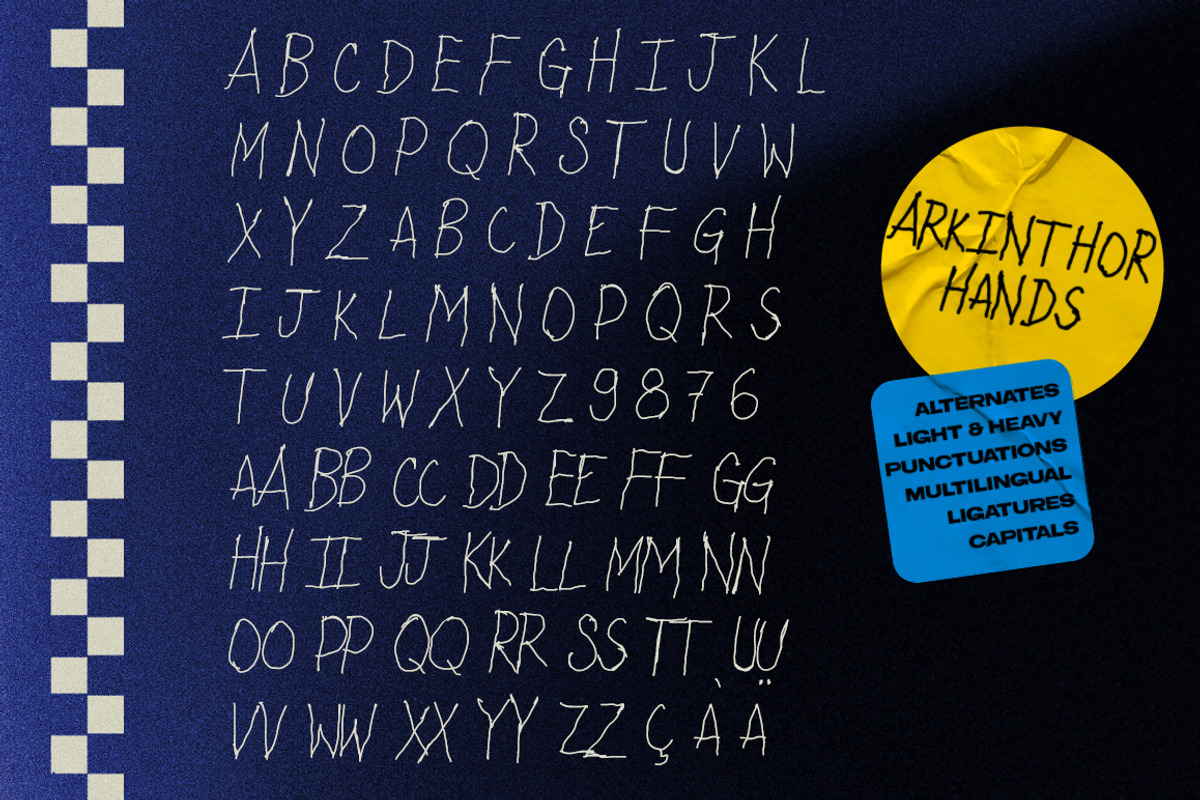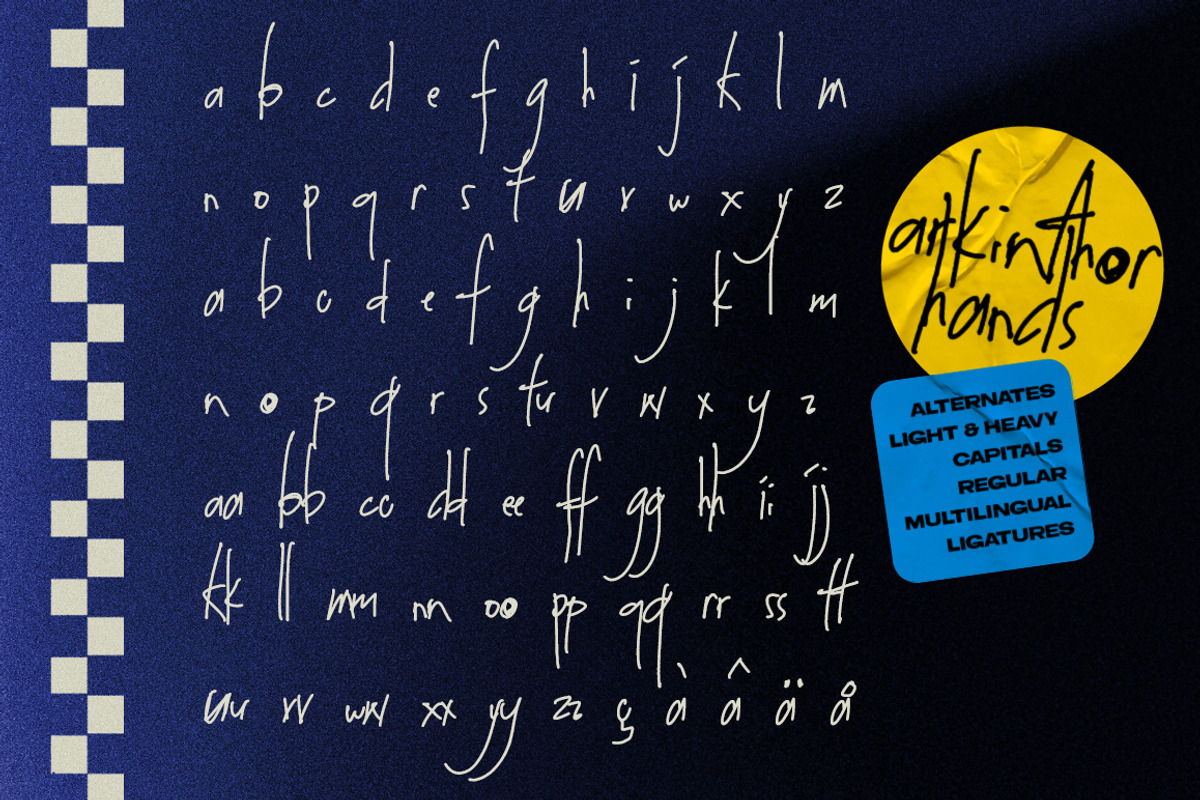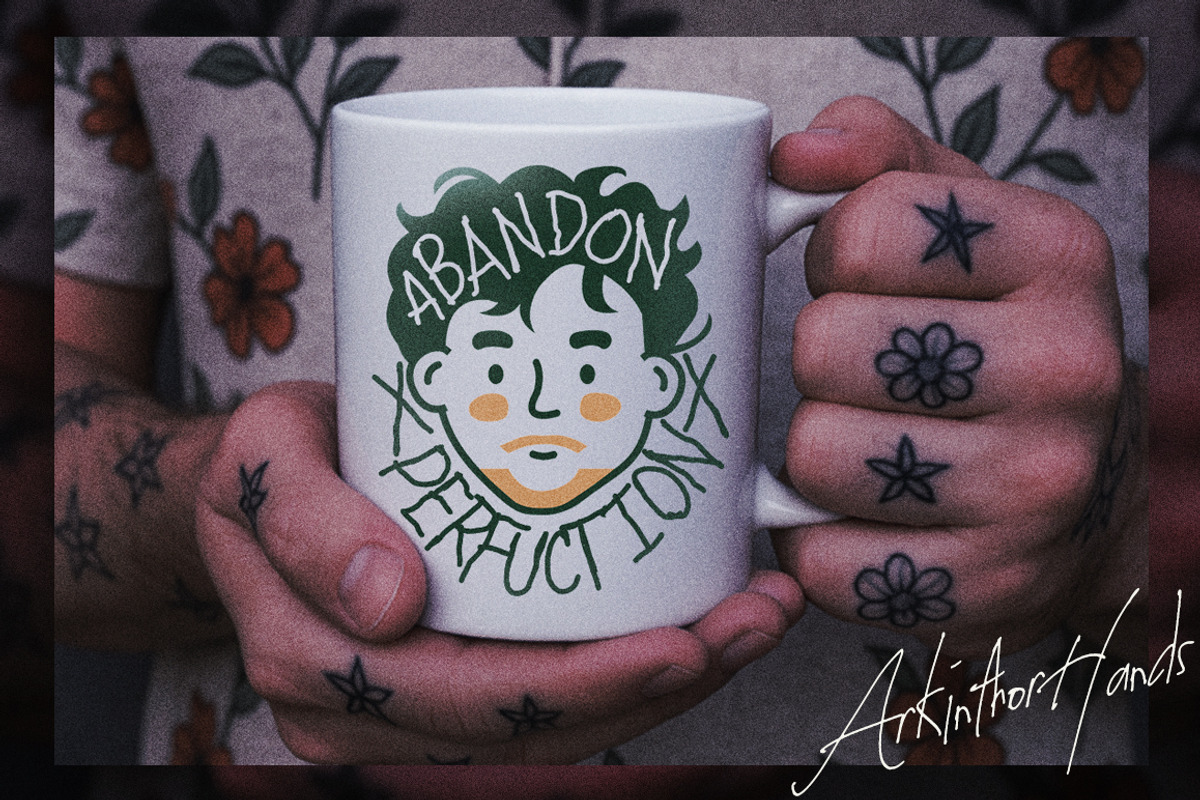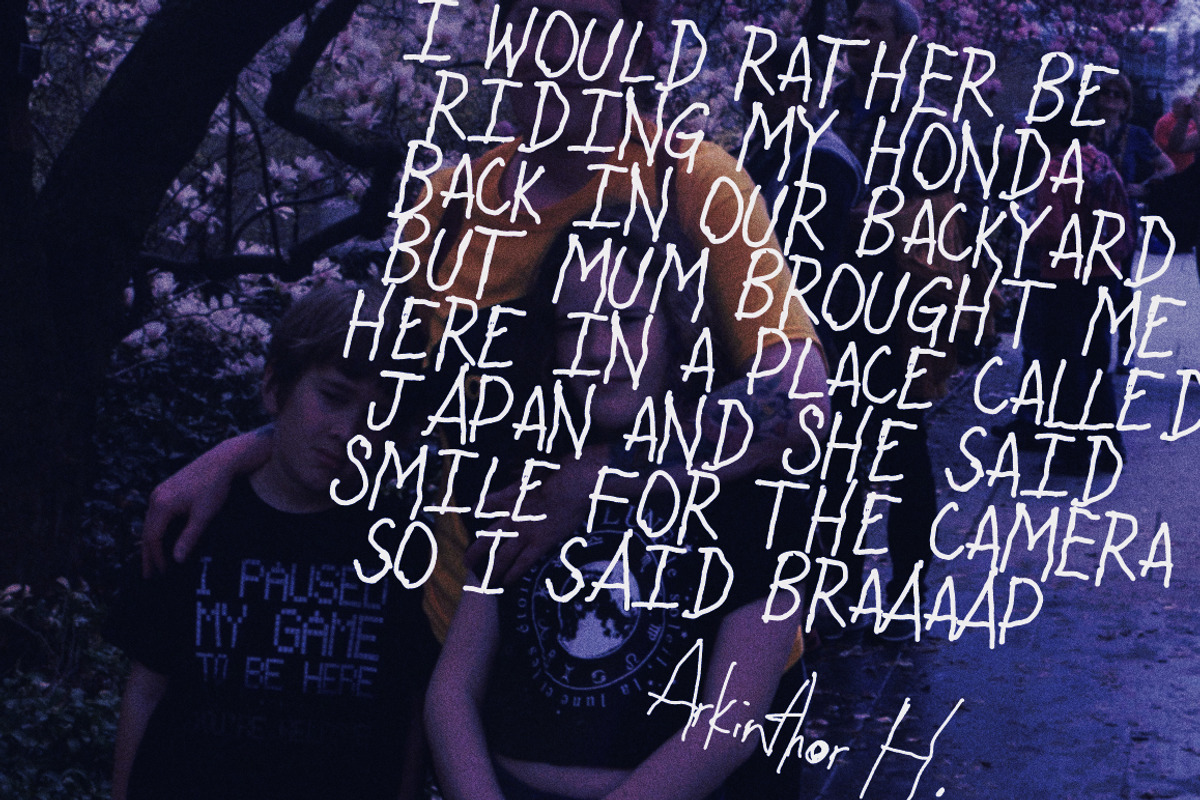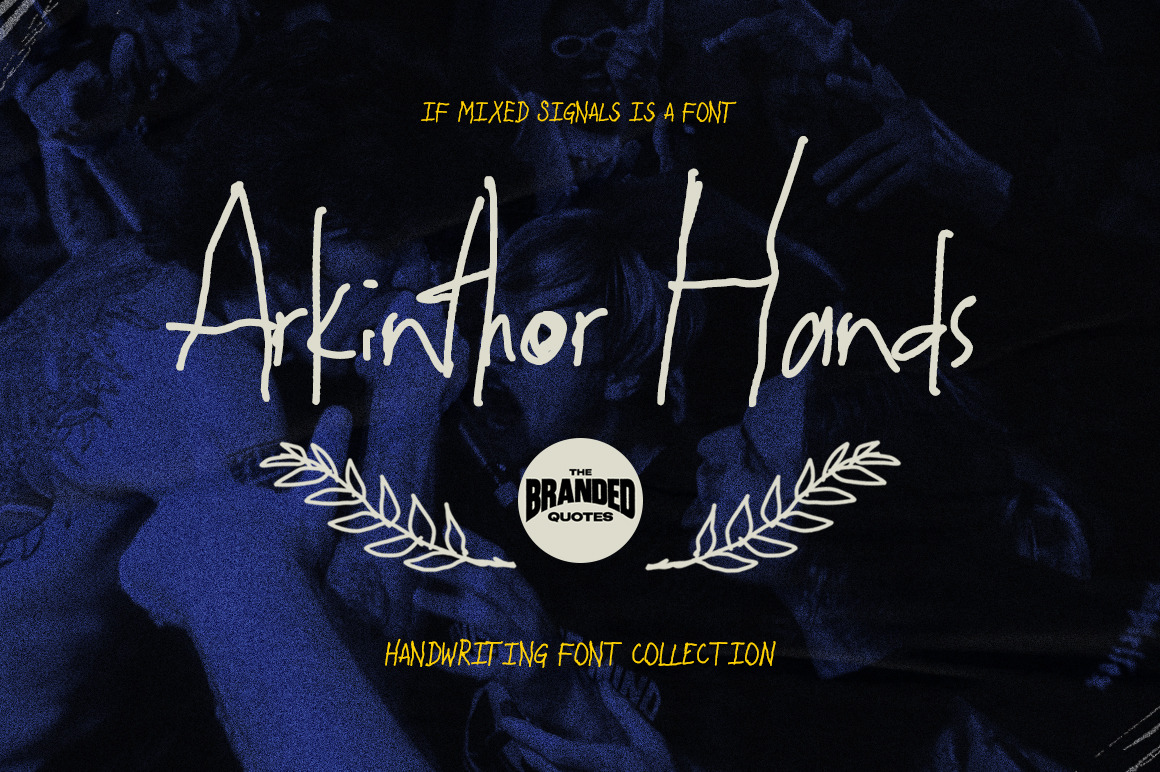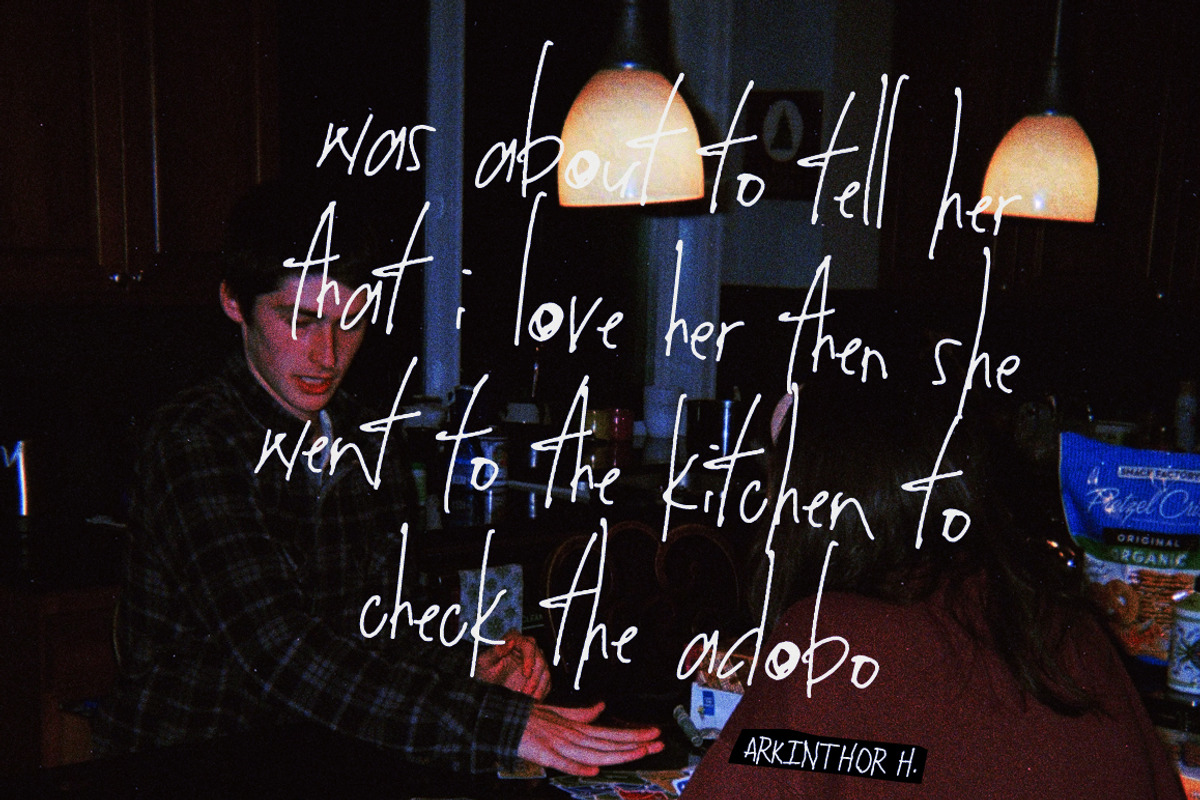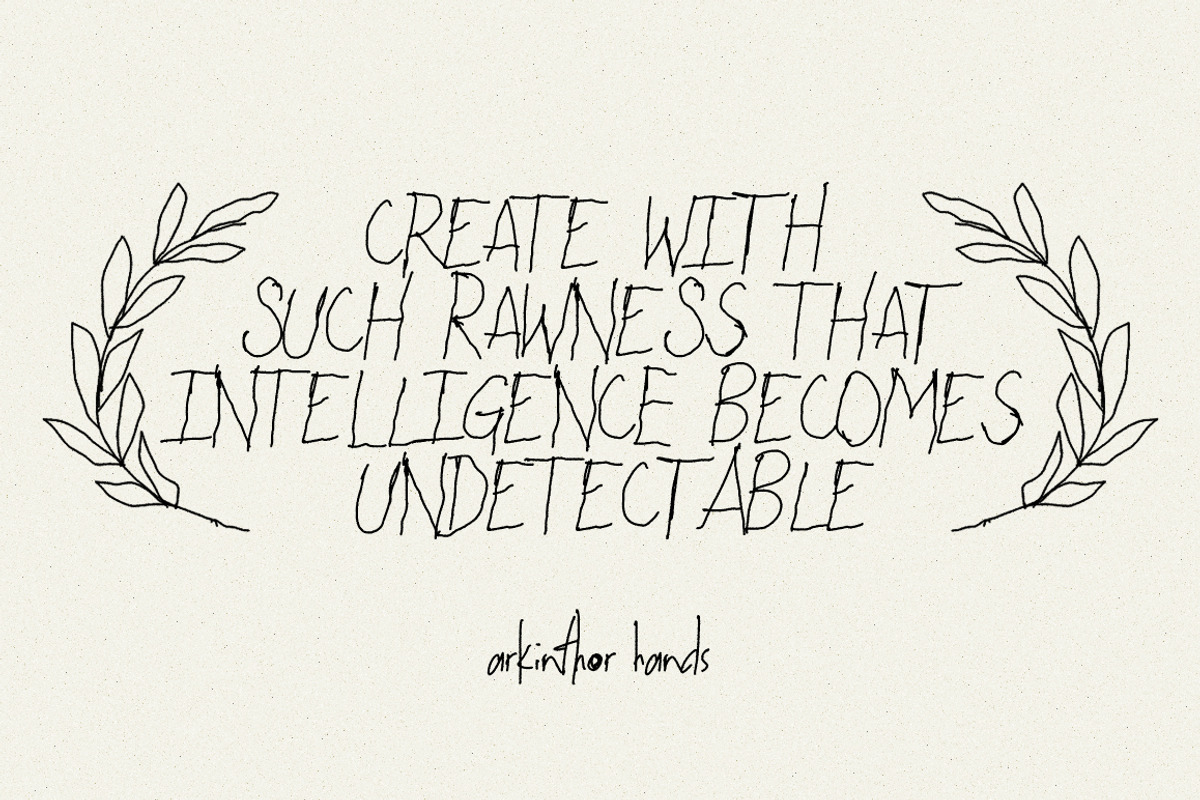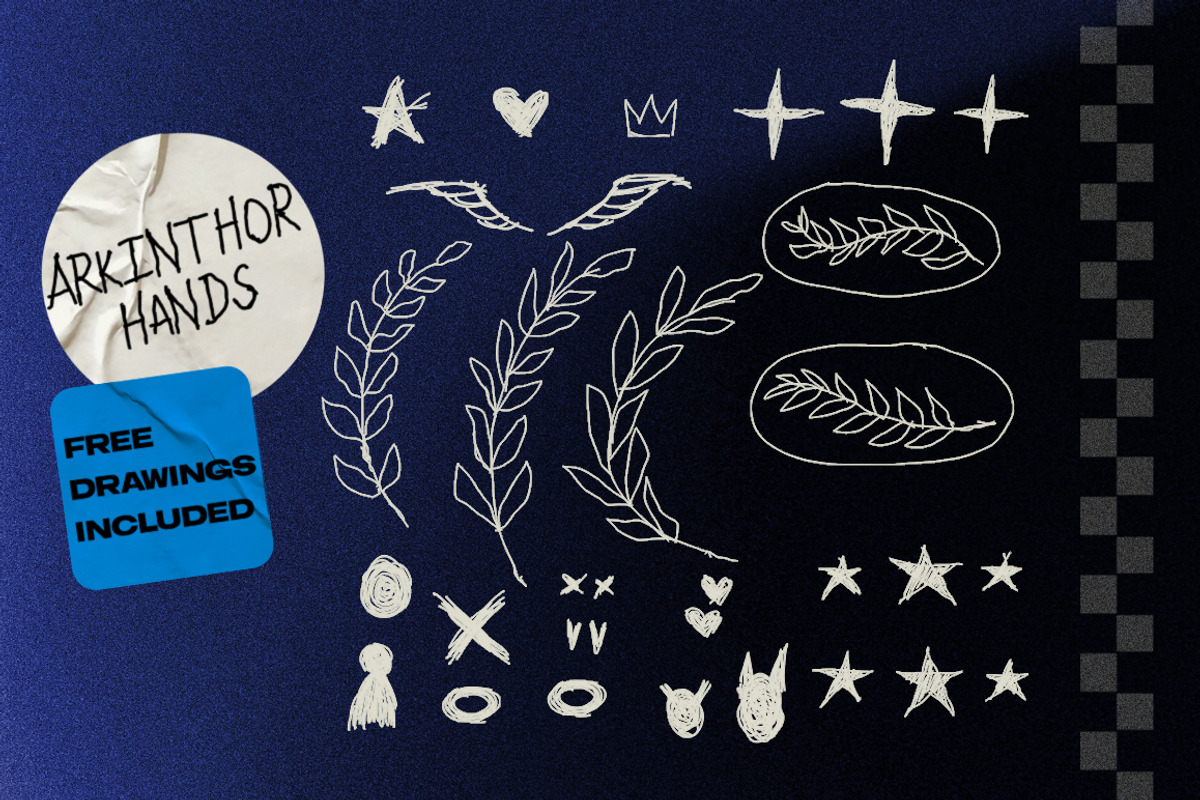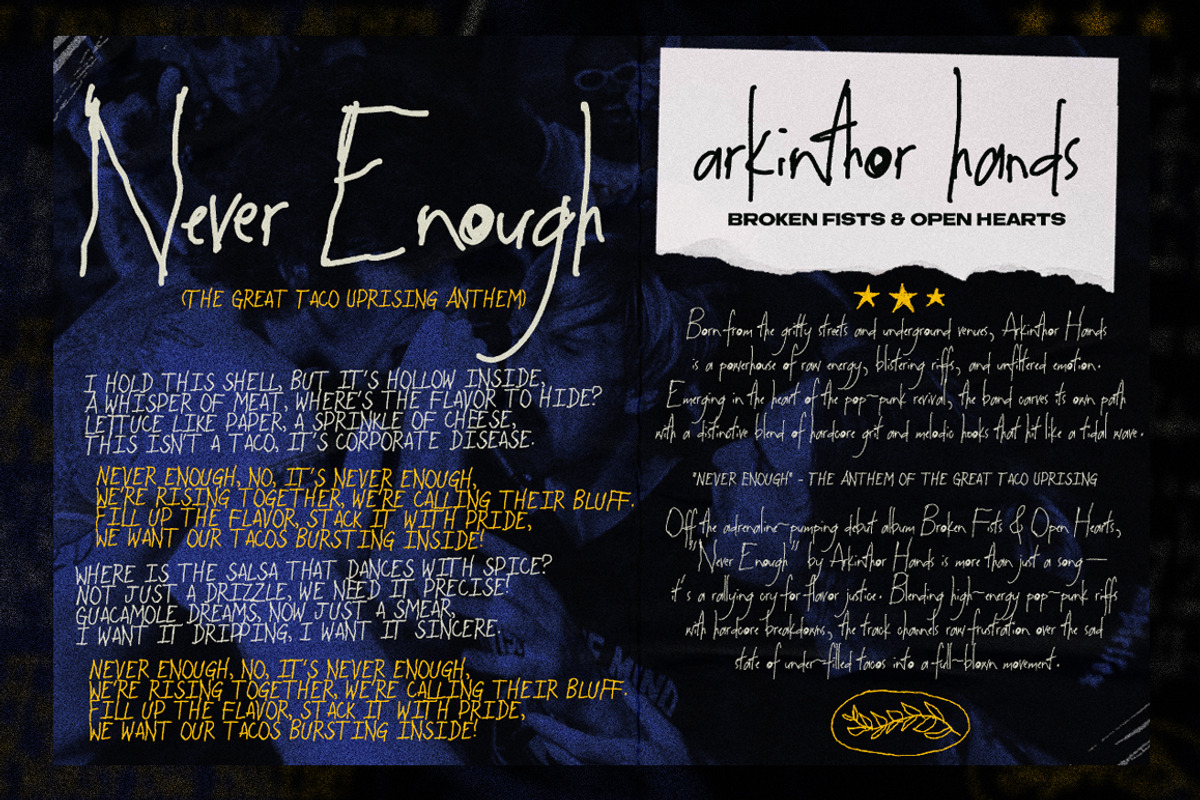
Arkinthor Hands - Font Collection
Warning: This font will give you mixed signals.
Rediscover the emotional energy of the good old days. When branding holds a deeper emotional connection. Scan your photos and slap it with Arkinthor Hands! A digitally-made handwriting font with a very raw linework. Plus, the carefree style makes it nonsensical but subtly attractive.
Arkinthor Hands Regular - Contains the uppercase and lowercase characters.
Arkinthor Hands Heavy - Bold version of the regular.
Arkinthor Hands Alternates - Contains the lowercase alternates and ligatures.
Arkinthor Hands Alternates Light - Lowercase alternates in lighter version.
Arkinthor Hands Capitals - Includes the uppercase and uppercase alternates.
Arkinthor Hands Caps Heavy - Bold version of the capitals, the most used of this variation.
Arkinthor Hands Signature - Signature script style of the font.
Features: Ligatures | Punctuations | Multilingual Support